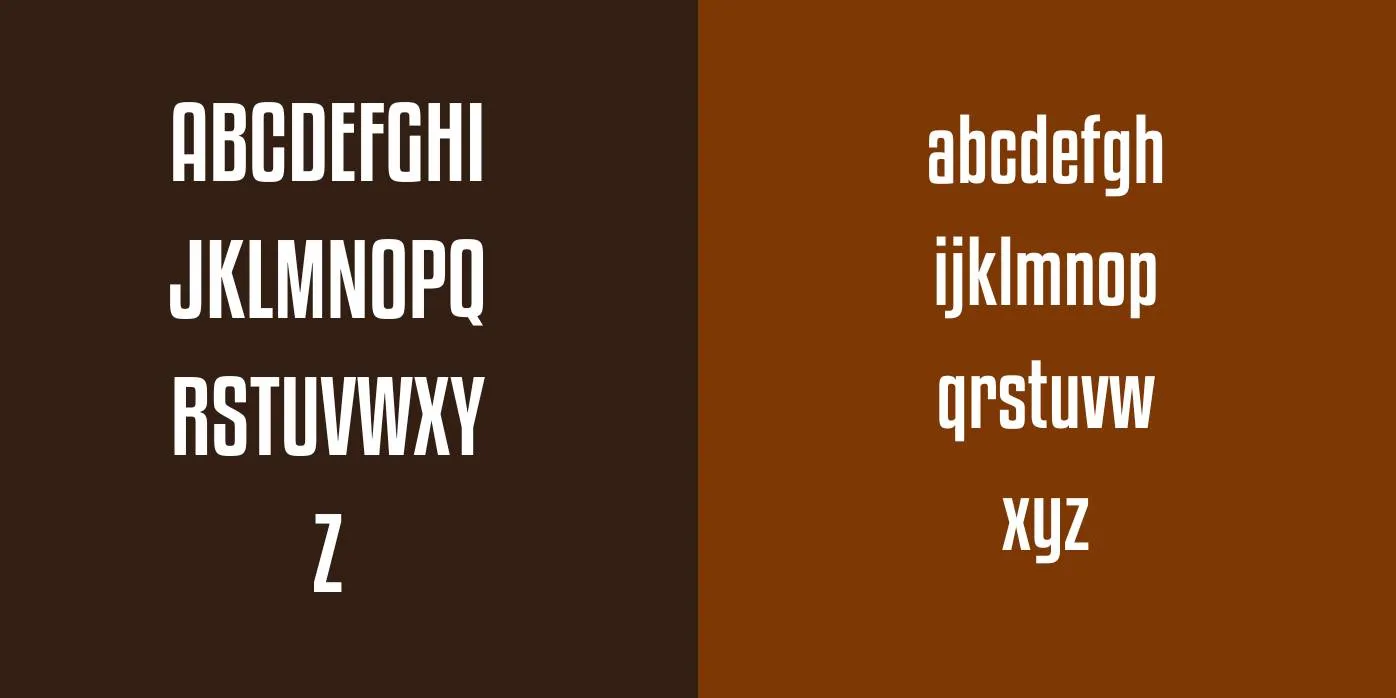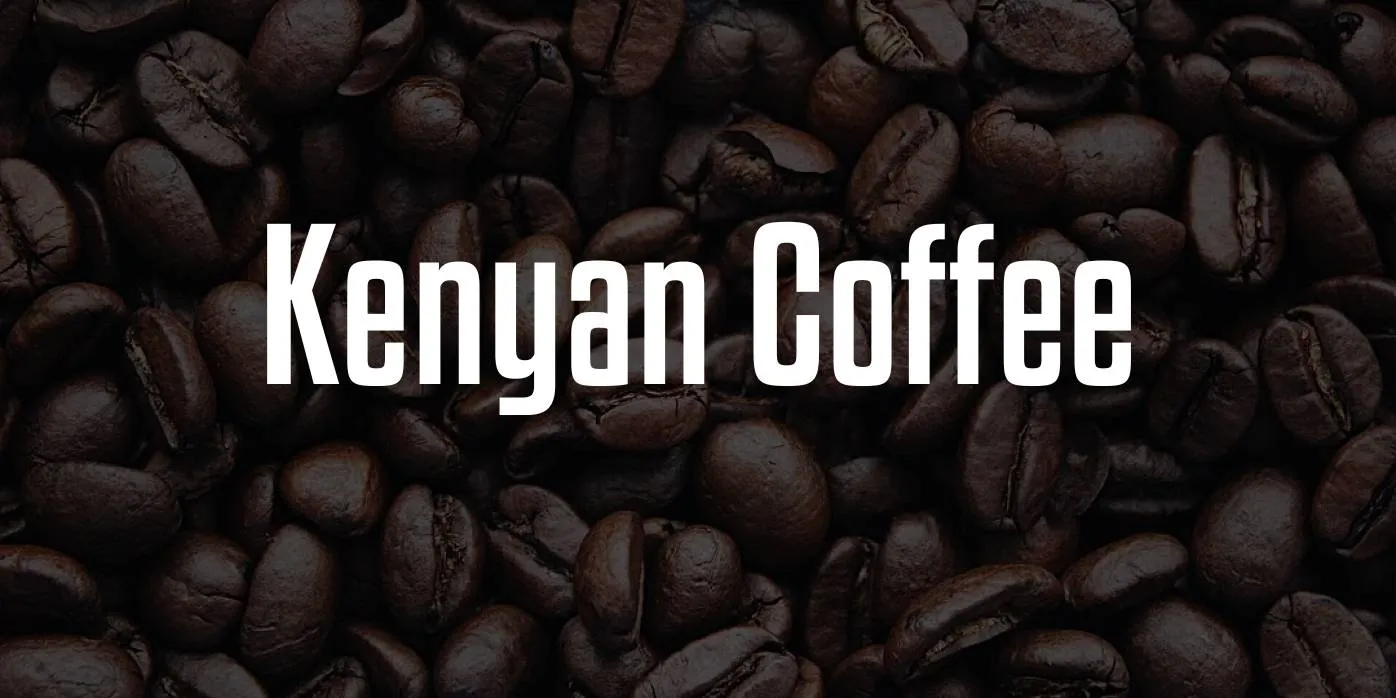
Kenyan Coffee Font
Let’s talk about a very unique Sans-Serif font. It was developed by a famous designer named Ray Larabie and published by Typodermic. This font is inspired by the coffee Kenyan Coffee cup and is a very famous font. It was created in 1999.
It supports almost all Latin-based languages. Usage You can make so many different projects by using this font. It has small letters, capital letters, special characters, symbols, and punctuation. This amazing font is used for making headlines and attractive titles.
You can make logos for coffee shops and store names. It is perfect for graphics and website designs in different graphic applications like Adobe Photoshop, CSS, and Canva. You can also use it for designing colorful projects with Corel Draw. To make attractive Banners, Posters, Flyers, Food menus, and brochures you can use this font as well.
You can also use this font in newspapers. For making designs on fabrics, T-shirts, Diaries, and mugs this font can also be used. It is suitable for both print and digital media. For branding purposes and product packing, you can also use it.